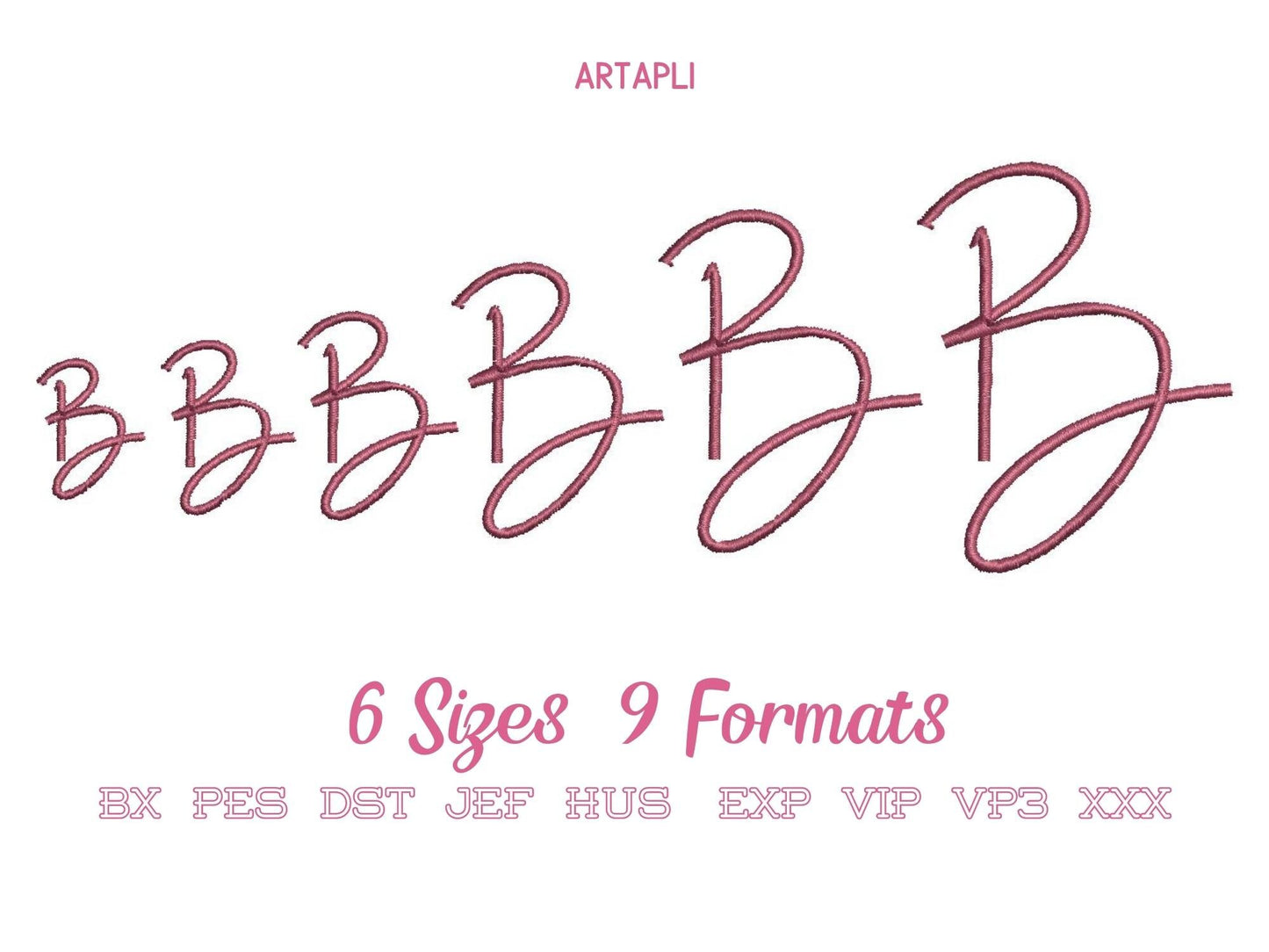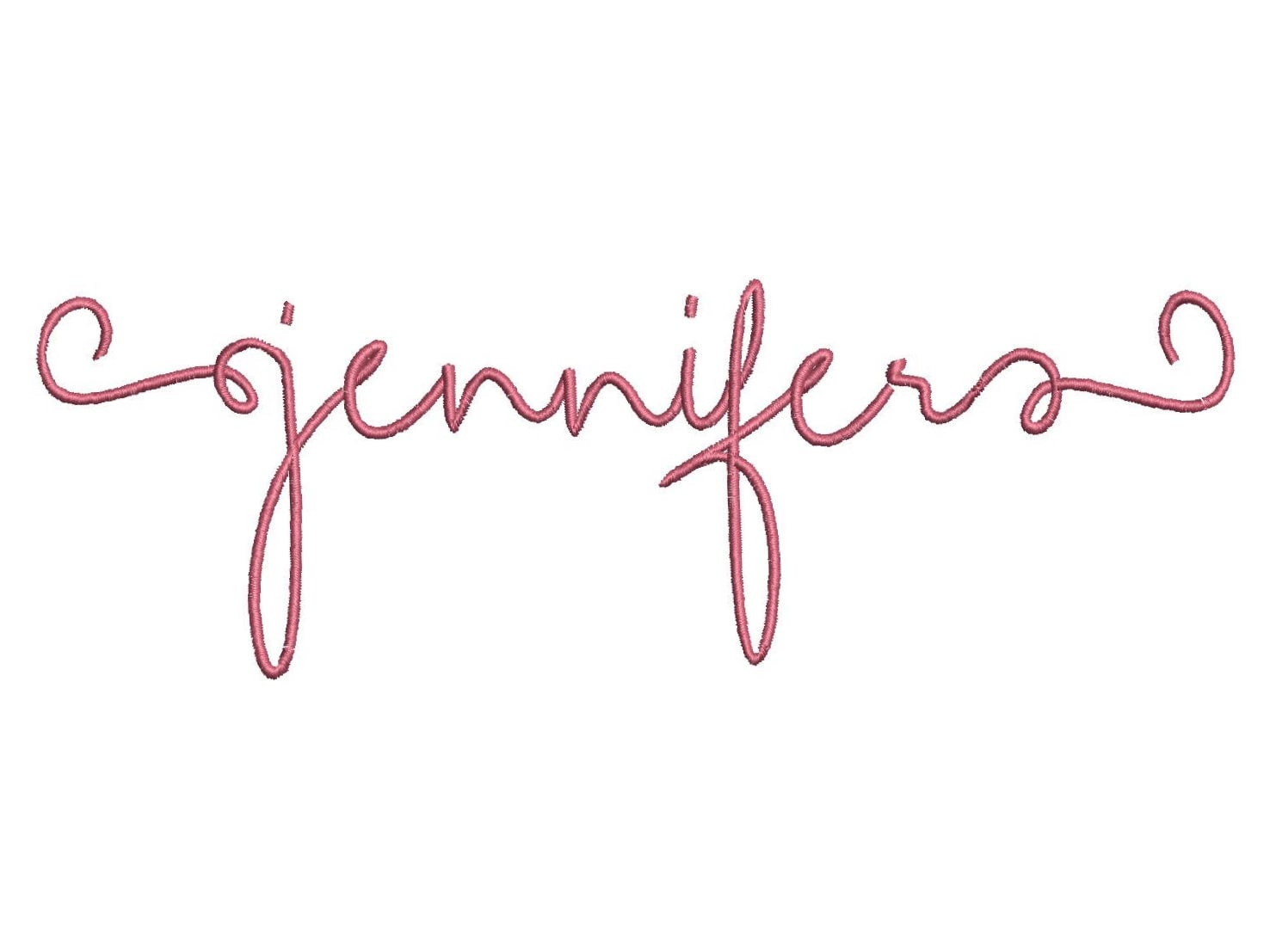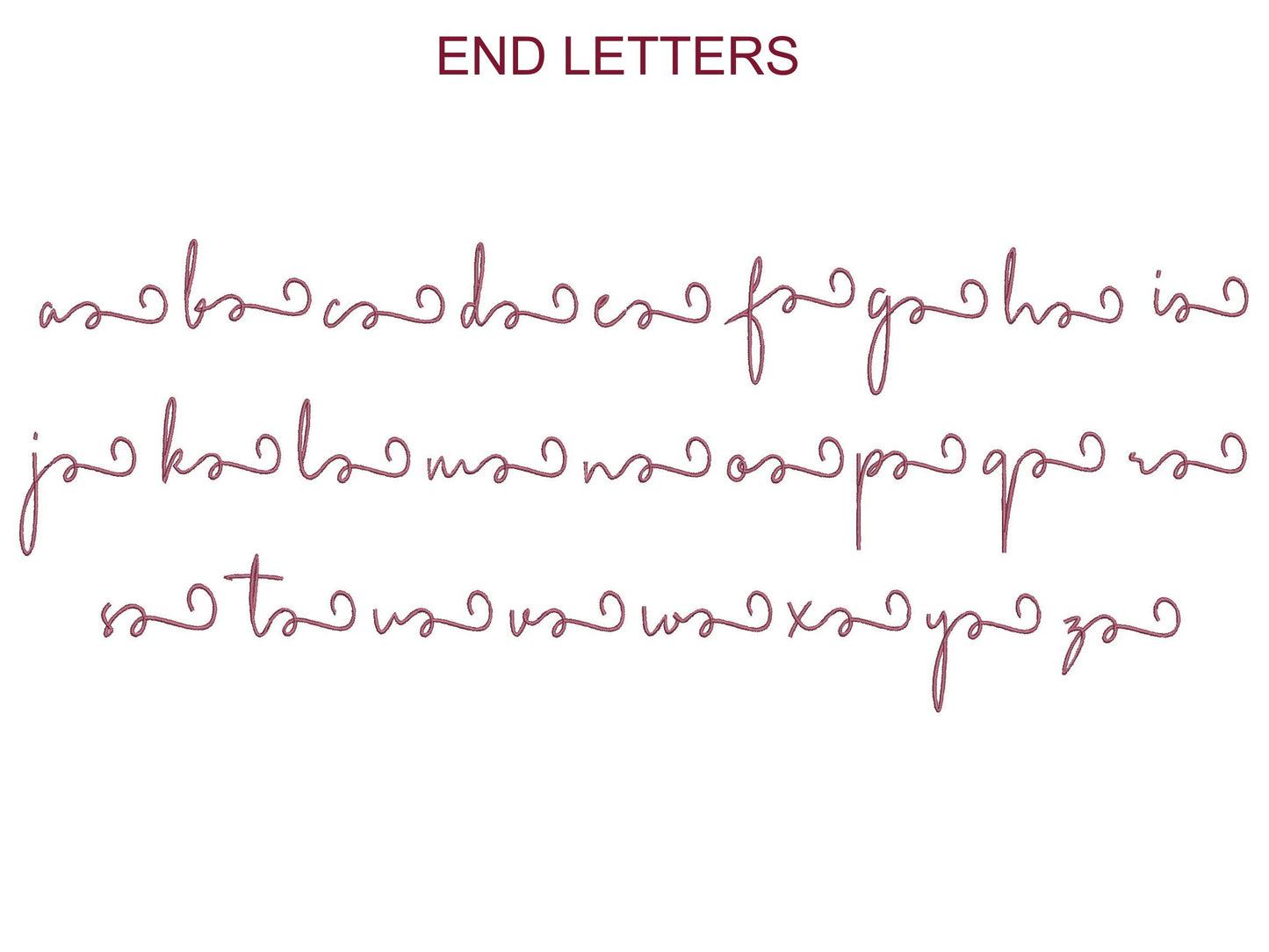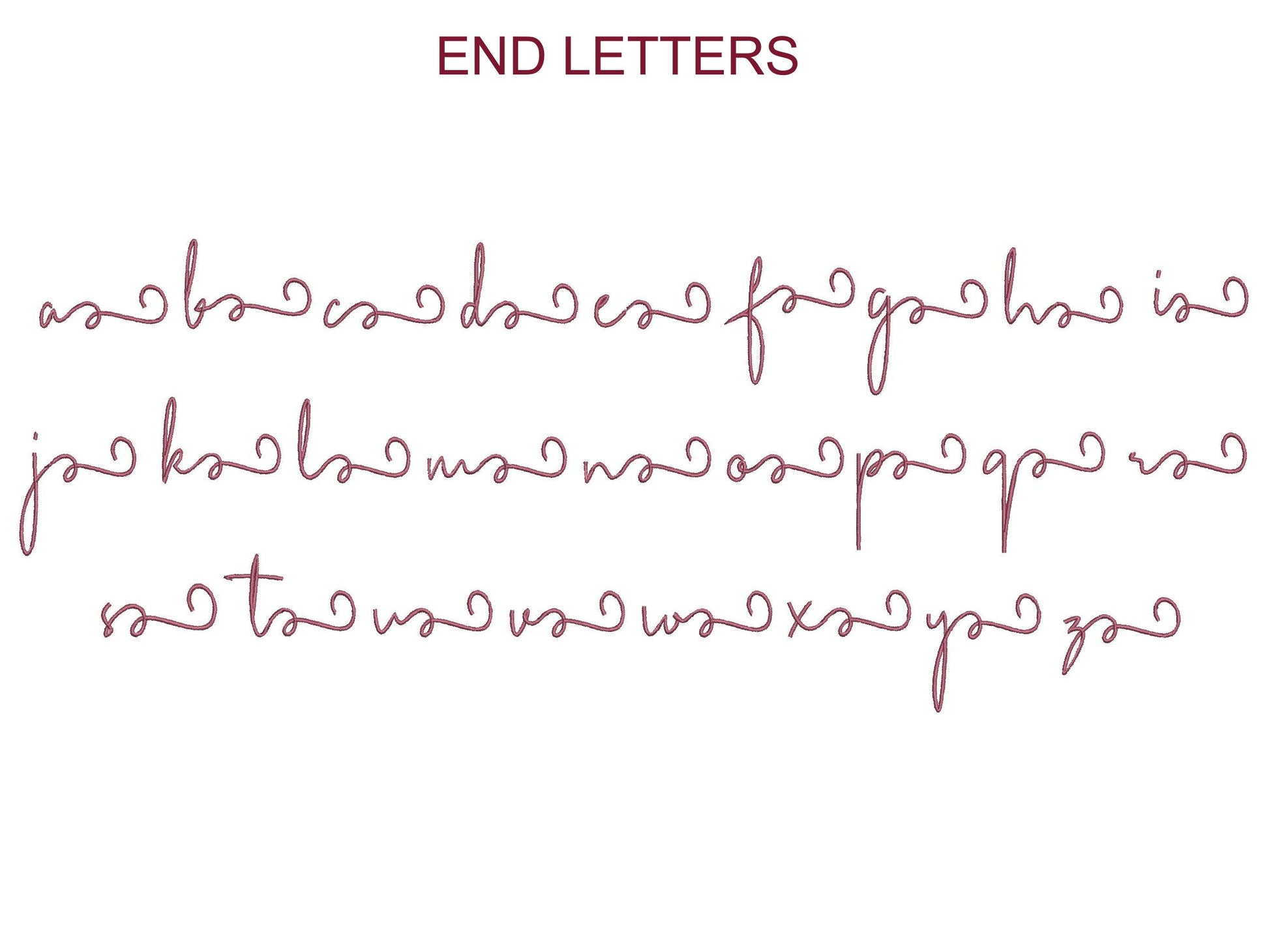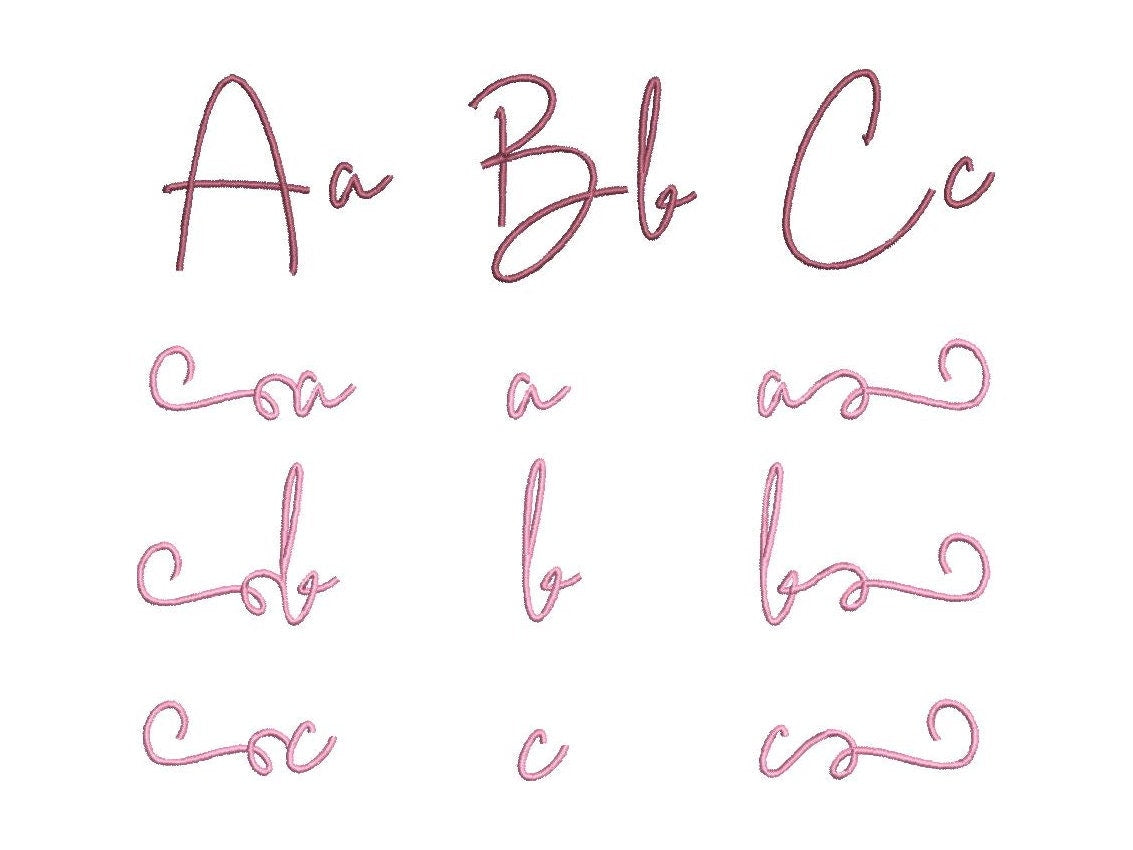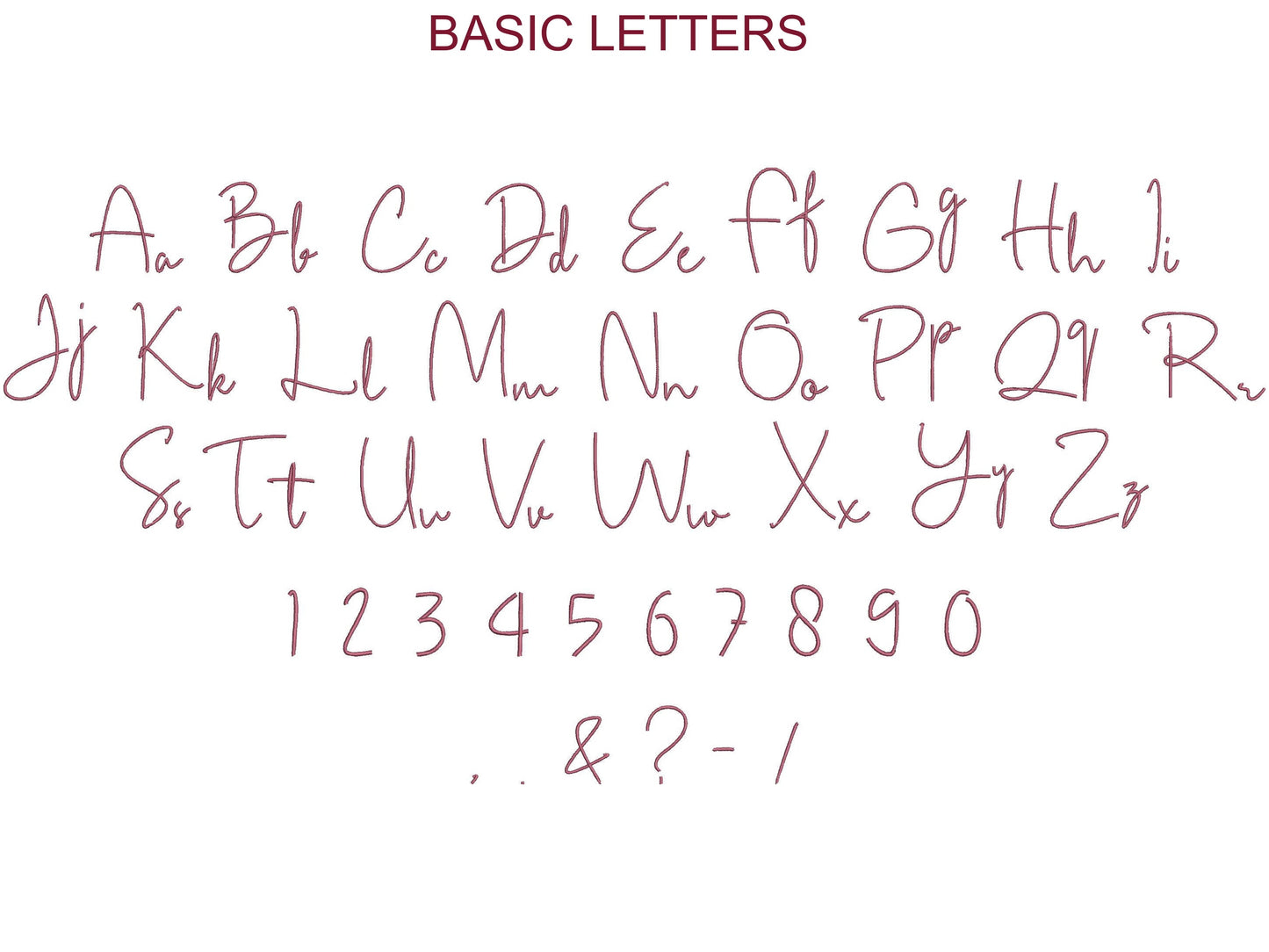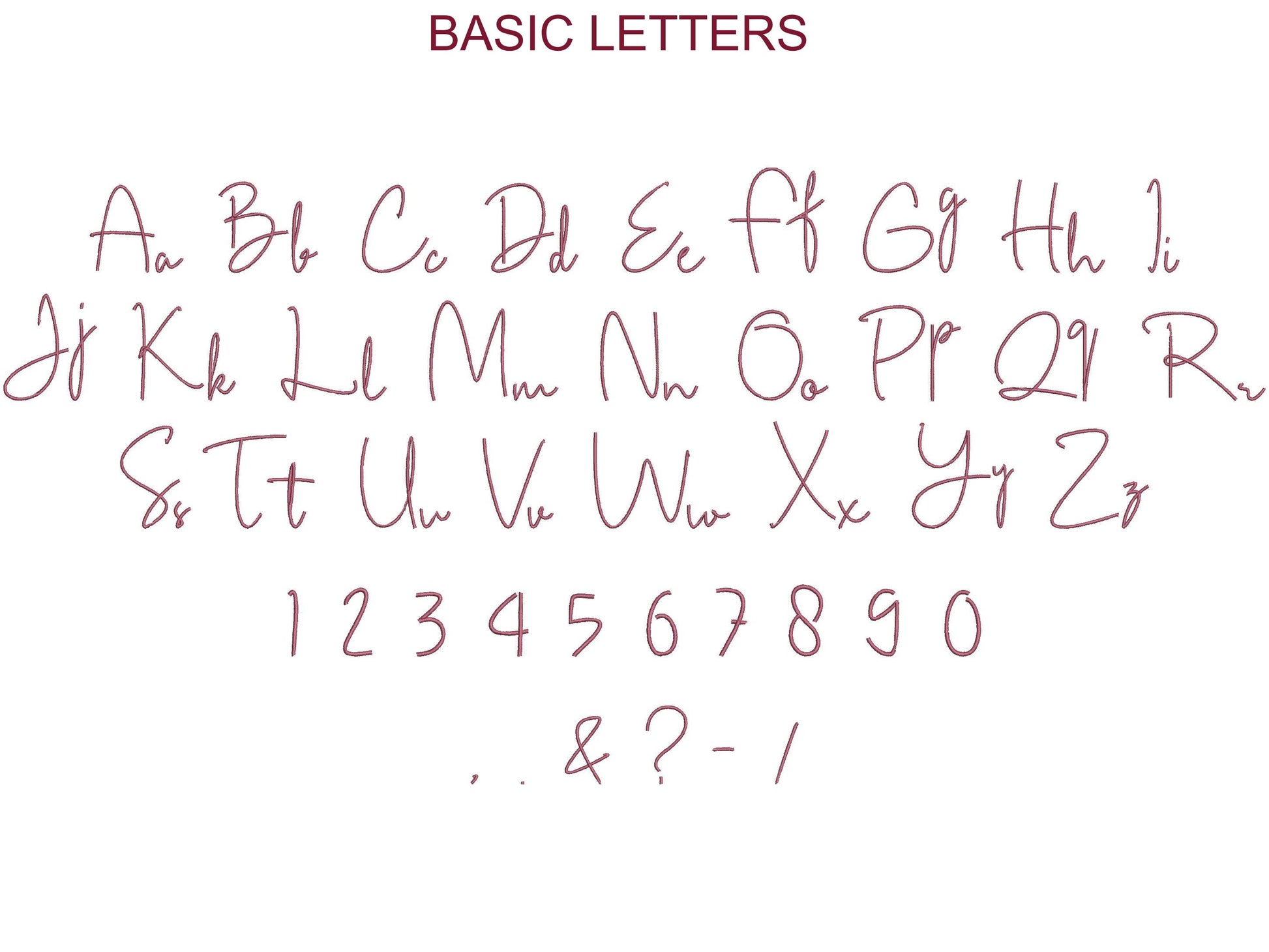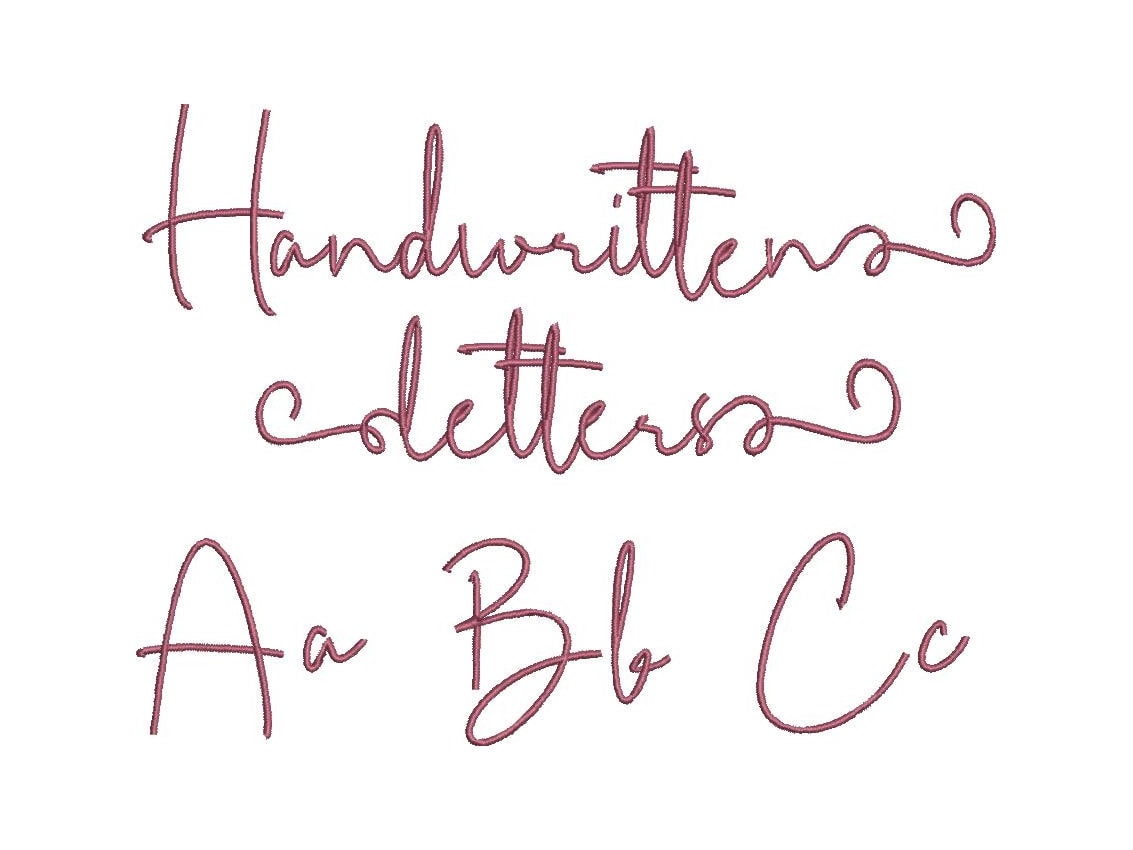
Or click to open the linkA small calligraphy signature script for names and short words. Lovely for gifts, towels, pouches and necklines.
Uppercase and lowercase letters, numbers 0 to 9 and punctuation, plus lowercase letters with a swash tail at the start and at the end to combine as you like. Six mini sizes: 0.8, 1, 1.2, 1.6, 2 and 2.5 inches.